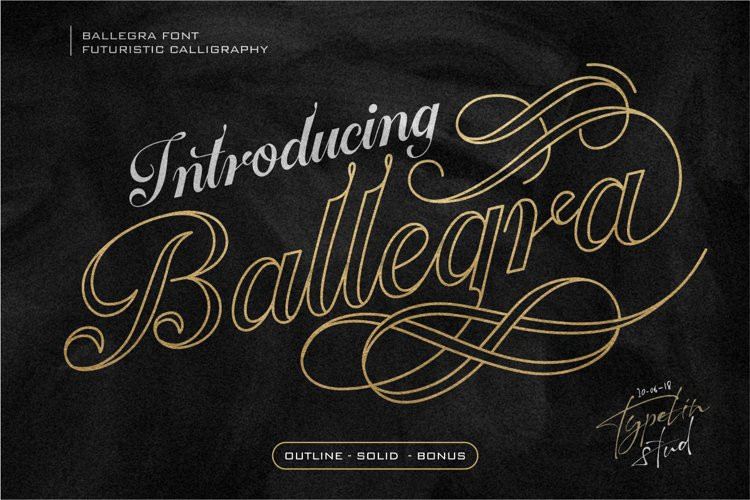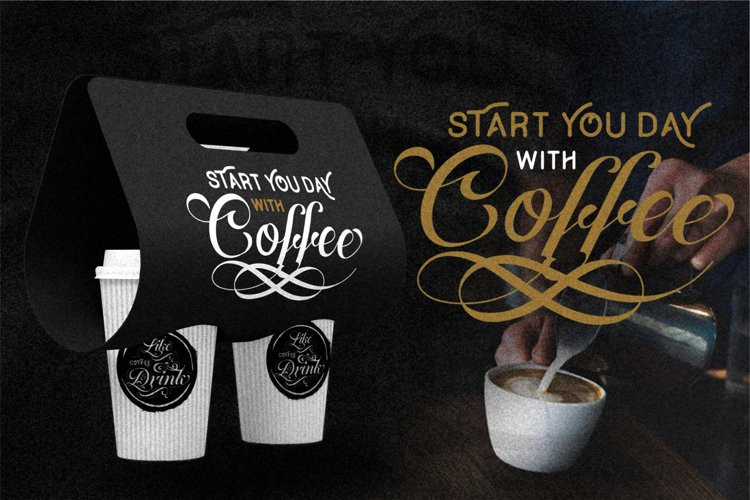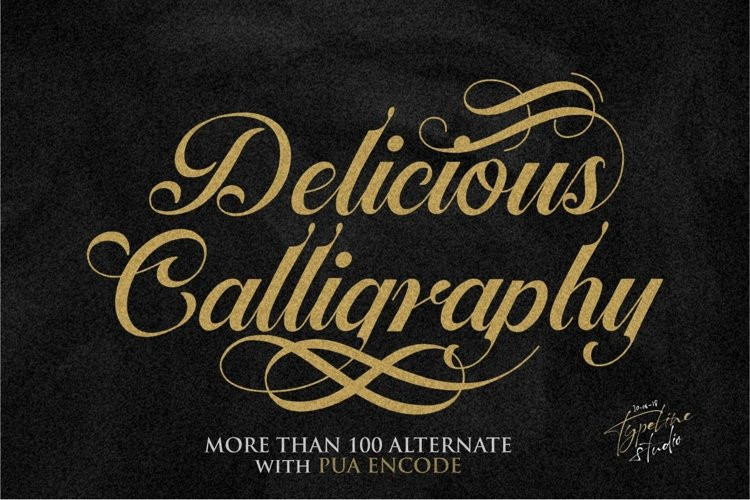
Ballegra Font
Ballegra FontHello good people..!!!I introduced our newest product font Ballegra Outline & Solid which is perfect for creating logos headline,cover,branding,packaging,tattoo logo and many more, I made it with a sense of Dellicious Calligraphy, Furusistic and unique and of course also elegant.
It’s recommended to use it in opentype capable software because This font already uses 100 A-Z uppercase Aternate a- z lowercase alternate,ligature.swash with PUA encode,This font is very easy to use for everyone, because I make it so simple but has a very Dellicious Calligraphy and futuristic taste, this font has a lowercase alternative and uppercase which is very similar to handwriting using a pen or copperplate style with ballegra outline dan brush pen vintage with ballegra solid so it is suitable for branding, logos, lettering,wuote,wedding, and many more.